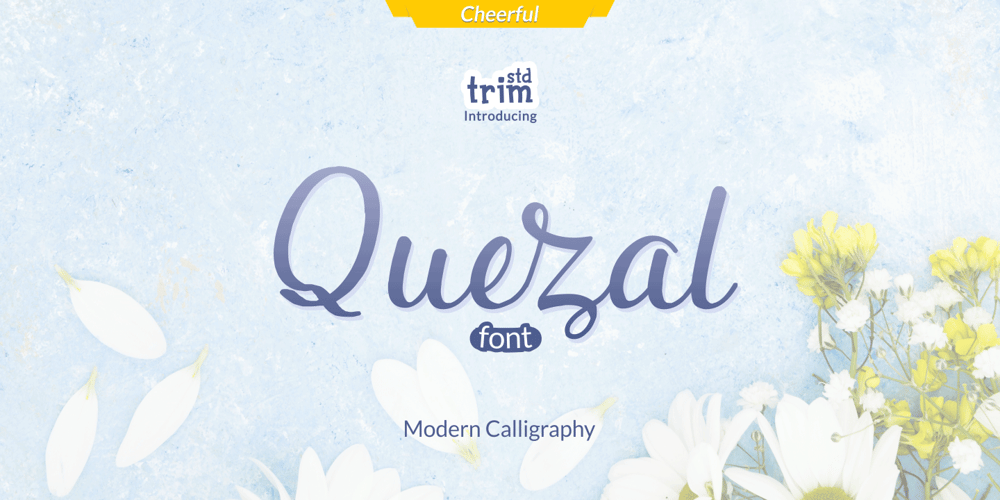
Quezal Font Family was designed by Deri Kurnia and published by Trim Studio. Quezal contains 1 styles and family package options. Quezal is a Modern Playful Calligraphy. Quezal embodies fun, playfulness and authenticity. This enchanting handwritten font will turn any creative idea into a true standout. Its perfectly suited for graphic artists to complete their design such as web design, advertisements, posters, logos, product signs, and many more.Quezal contains all standard glyphs and punctuations.